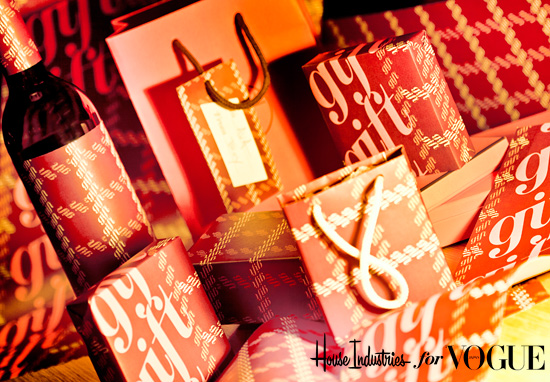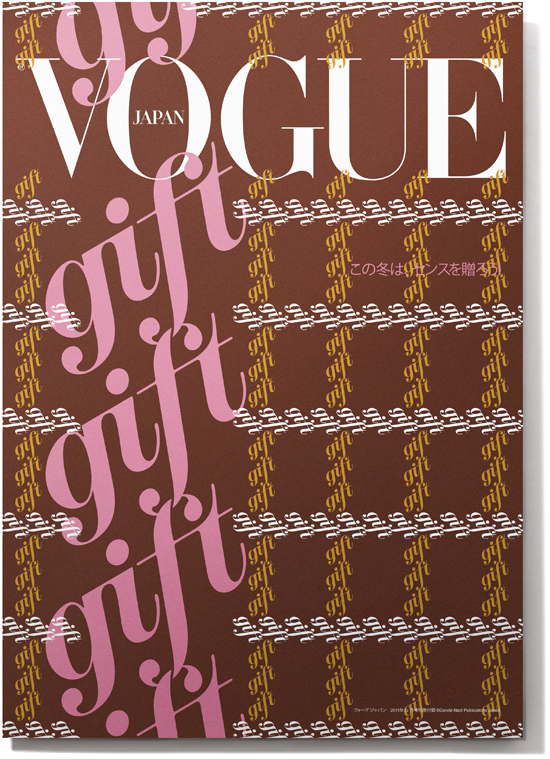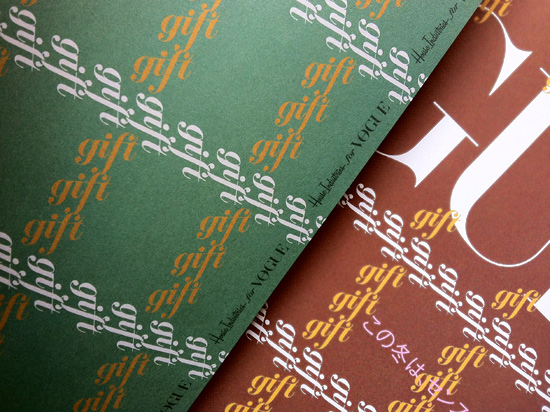
When our Japanese rep called and said Vogue Japan would like House to design the cover and holiday gift wrap insert for their December issue, we thought woven typography might fit the occasion. Inspired by bouclĂ© fabrics and tartan plaid textiles, the ‘gift’ pattern constructed from Photo-lettering’s West Italiano proved to be a fashionable and festive holiday choice.
Selvedge detail of the wrapping paper Vogue included in each issue.
Original comps to check the fit and finish.